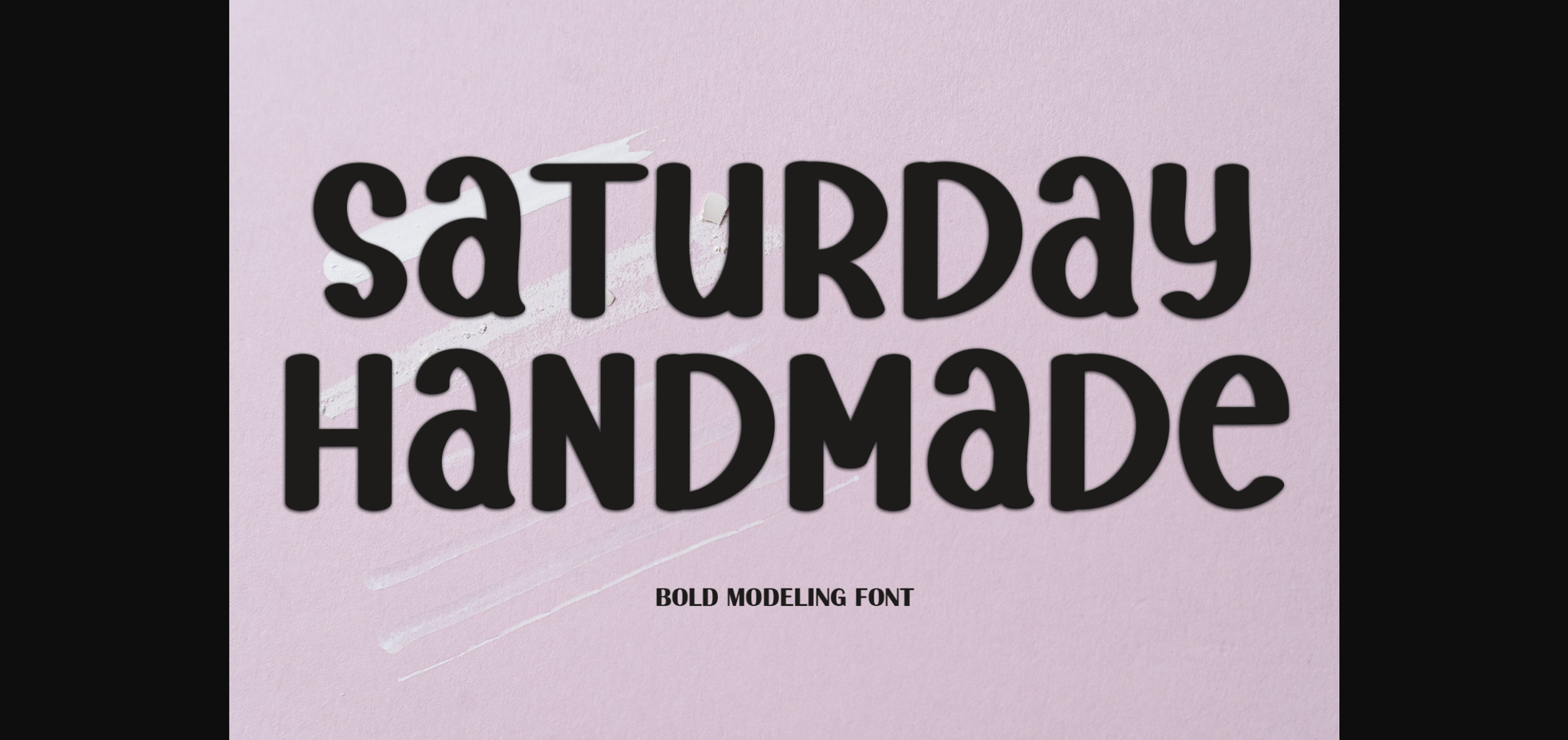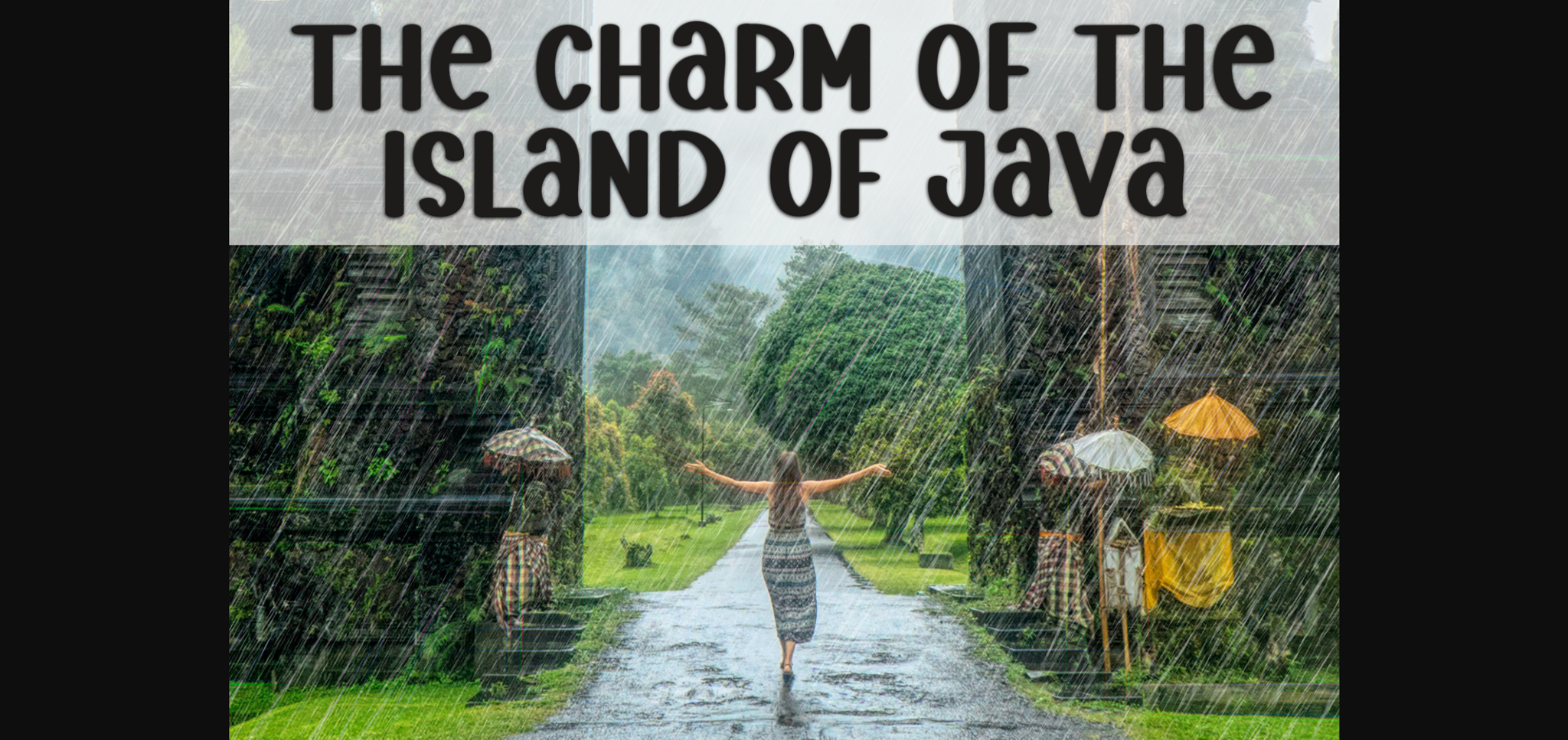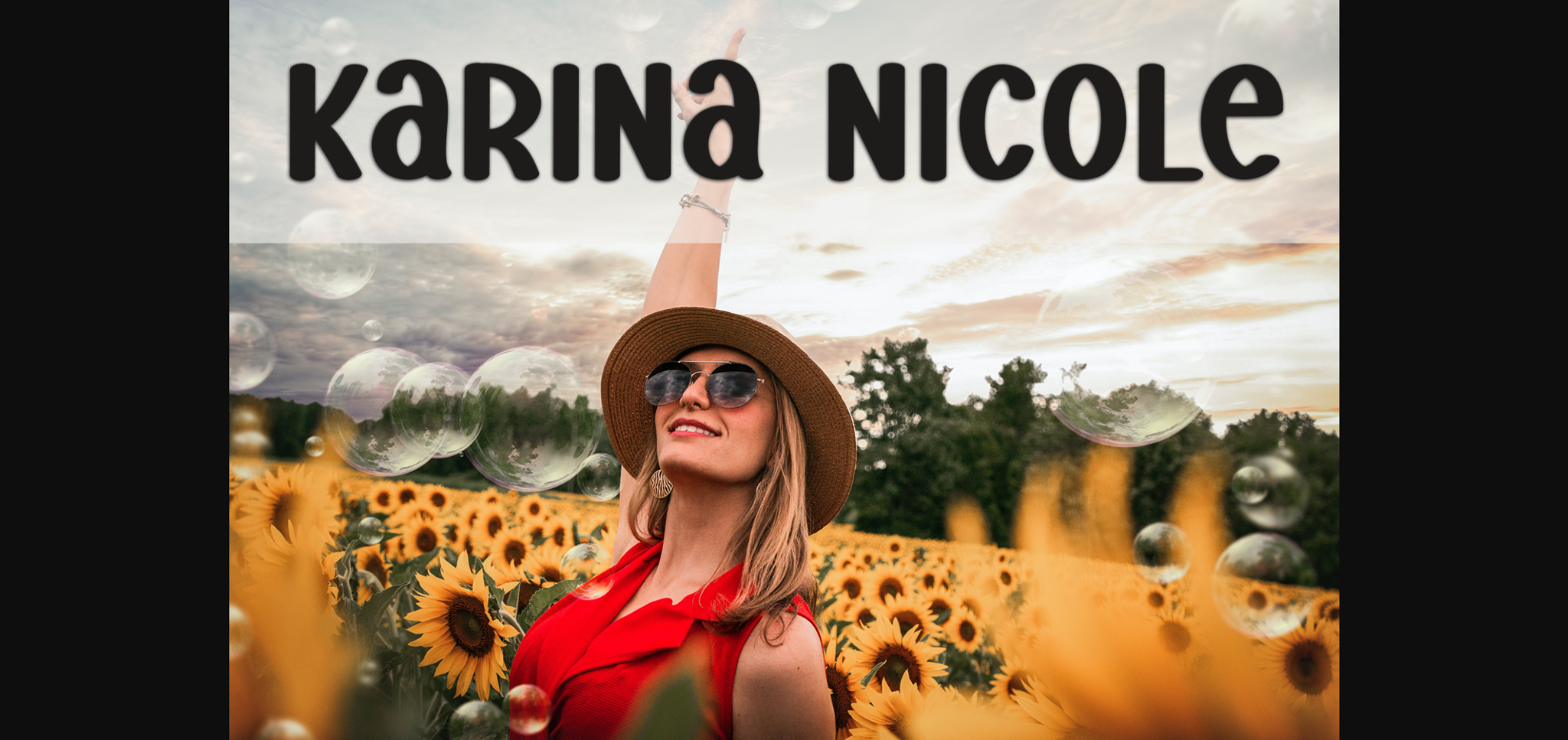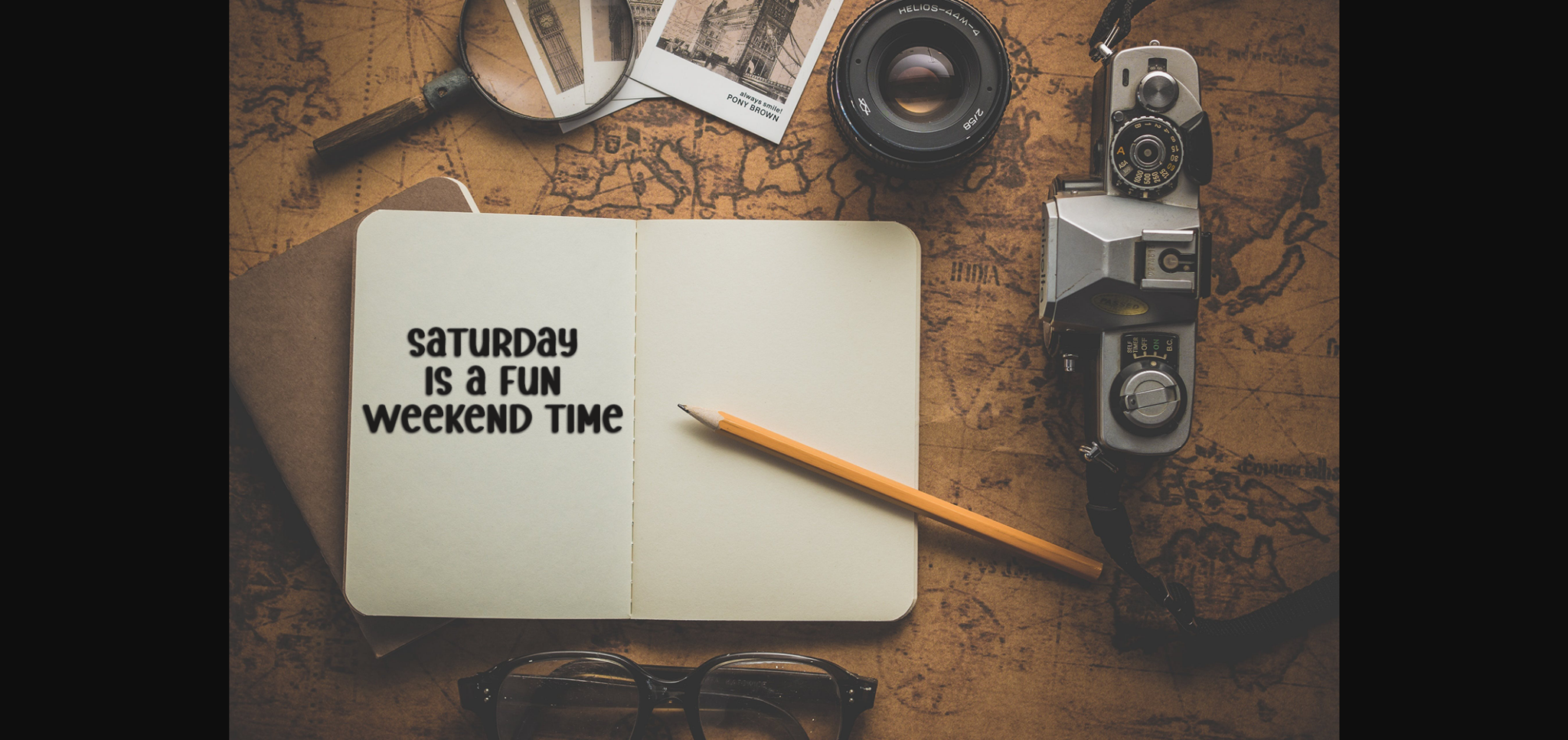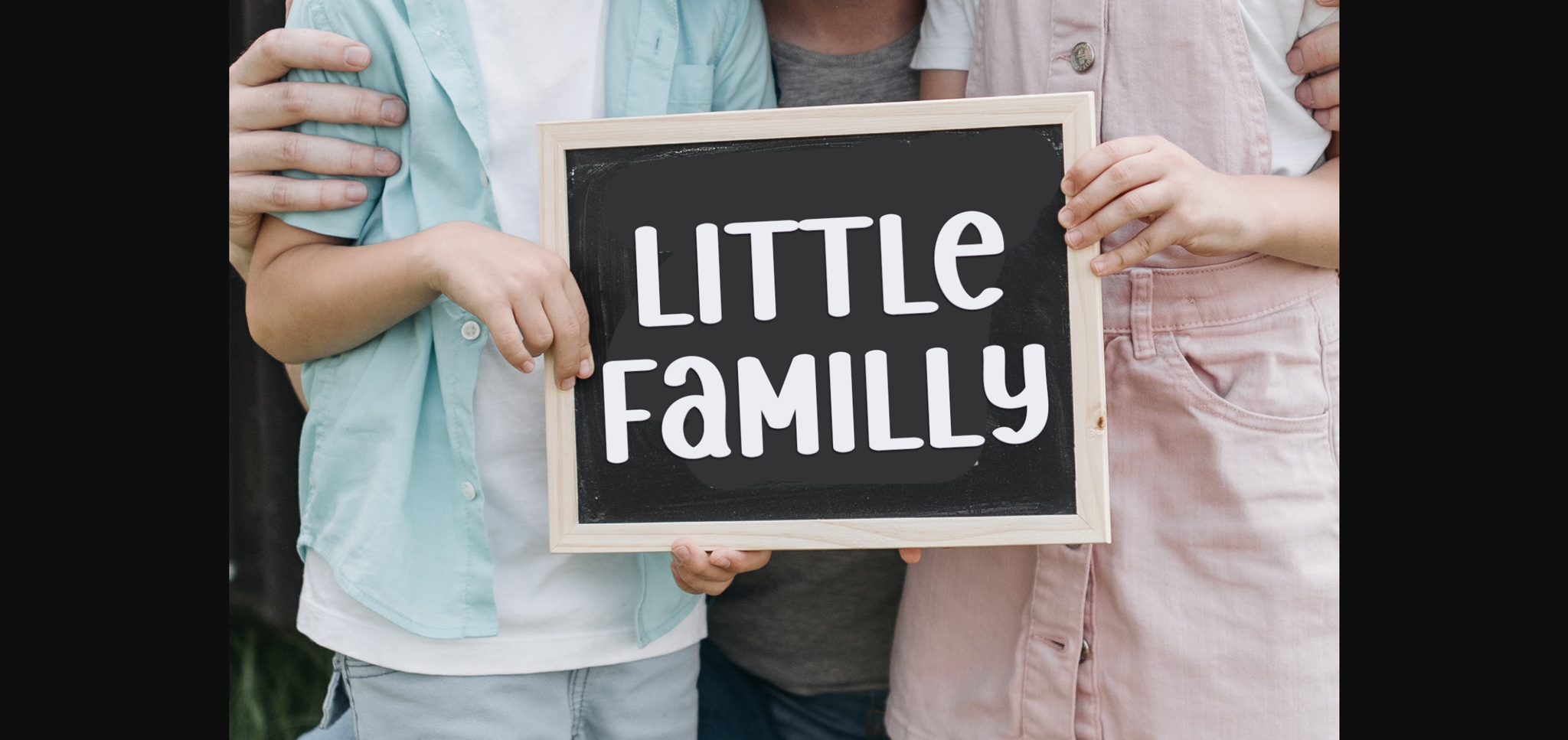
About Saturday Handmade Font
Saturday Handmade is a delicate, elegant, and flowing sans-serif font. It has beautiful and well-balanced characters and as a result, it matches a wide pool of designs.